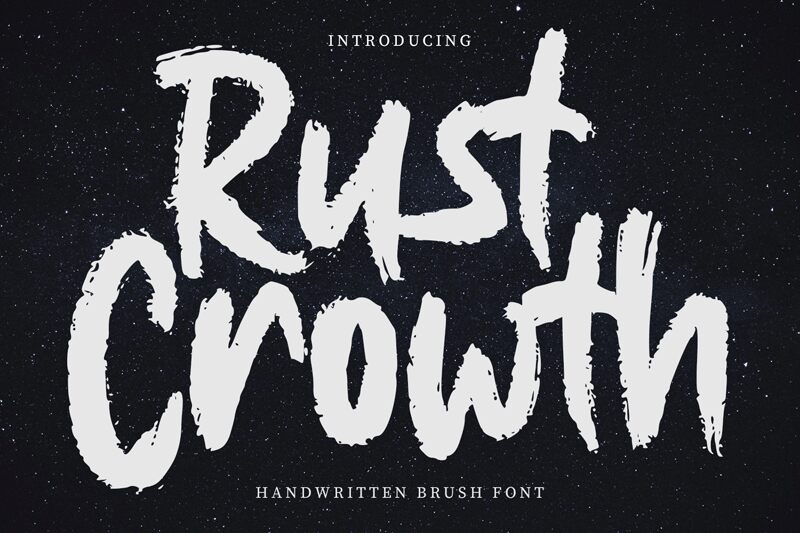
Rust Crowth, a brush font designed by Maulana Creative, exudes a charming and artistic vibe. Its semi-bold weight adds a touch of boldness while maintaining legibility. With its semi-condensed width, this font is perfect for projects that require a balance between elegance and modernity.
Imagine using Rust Crowth for greeting cards, branding materials, or invitations to infuse your designs with an authentic handwritten feel. Its expressive strokes and unique characters will surely captivate viewers and leave a lasting impression.
Let Rust Crowth bring a touch of creative flair to your next project!